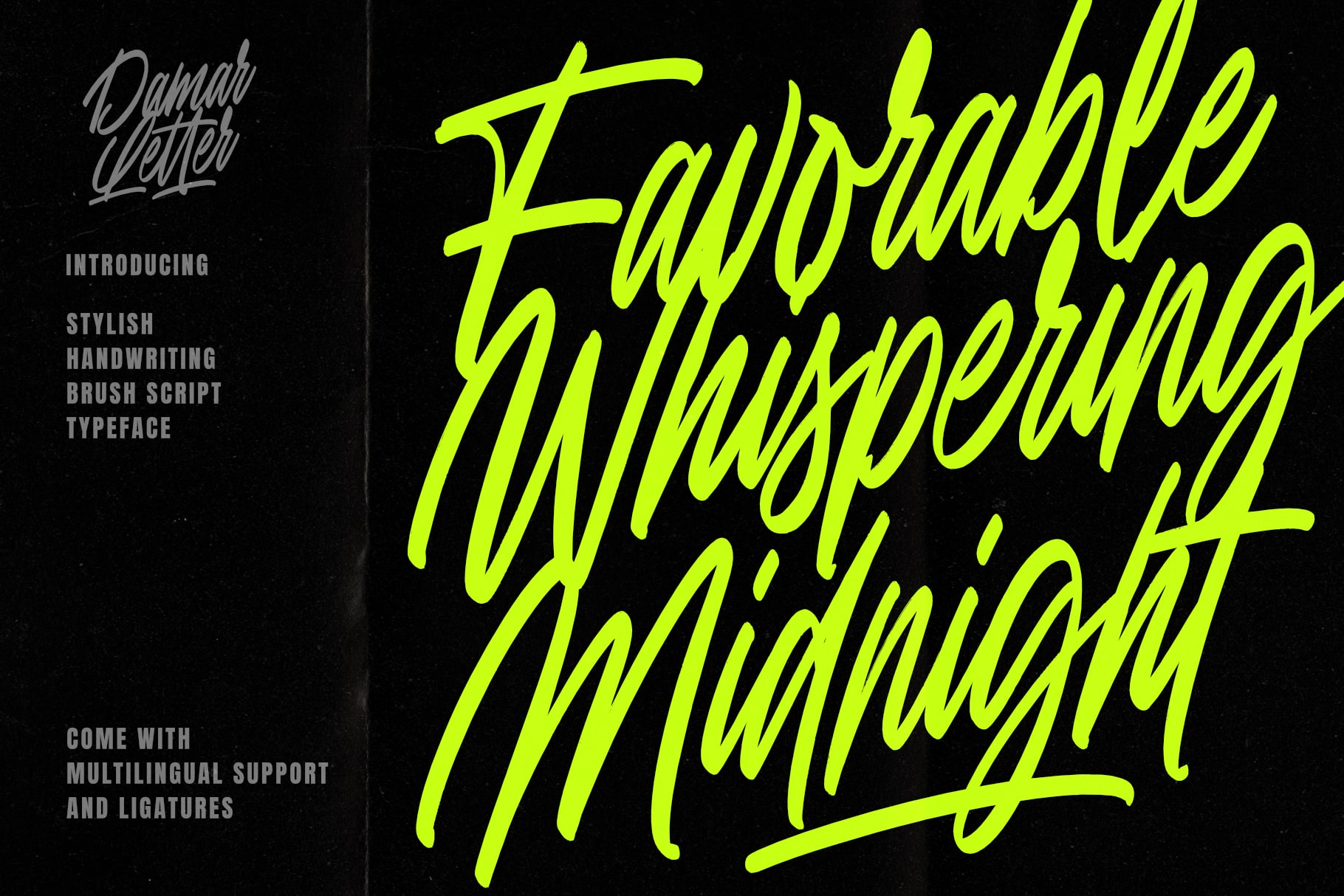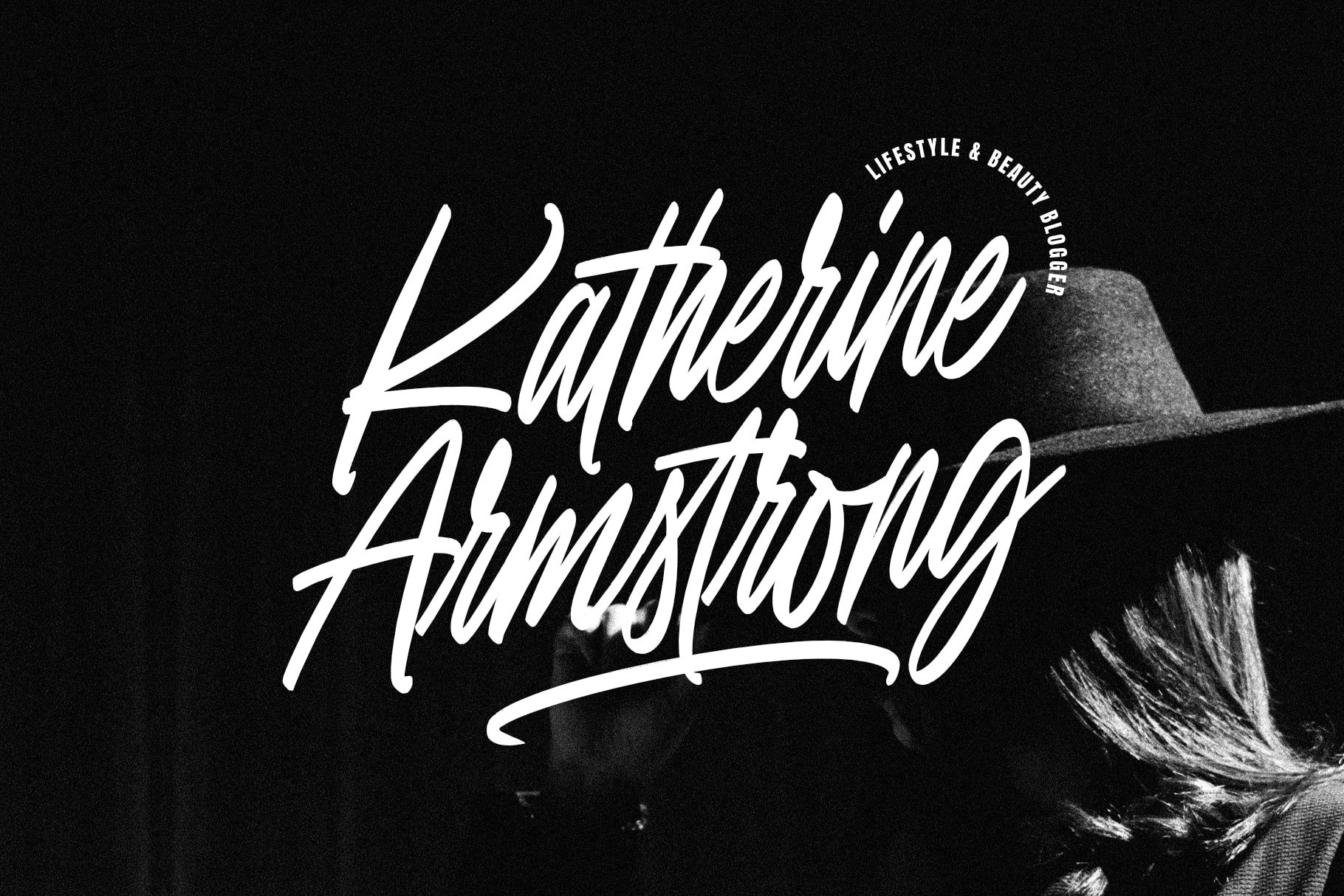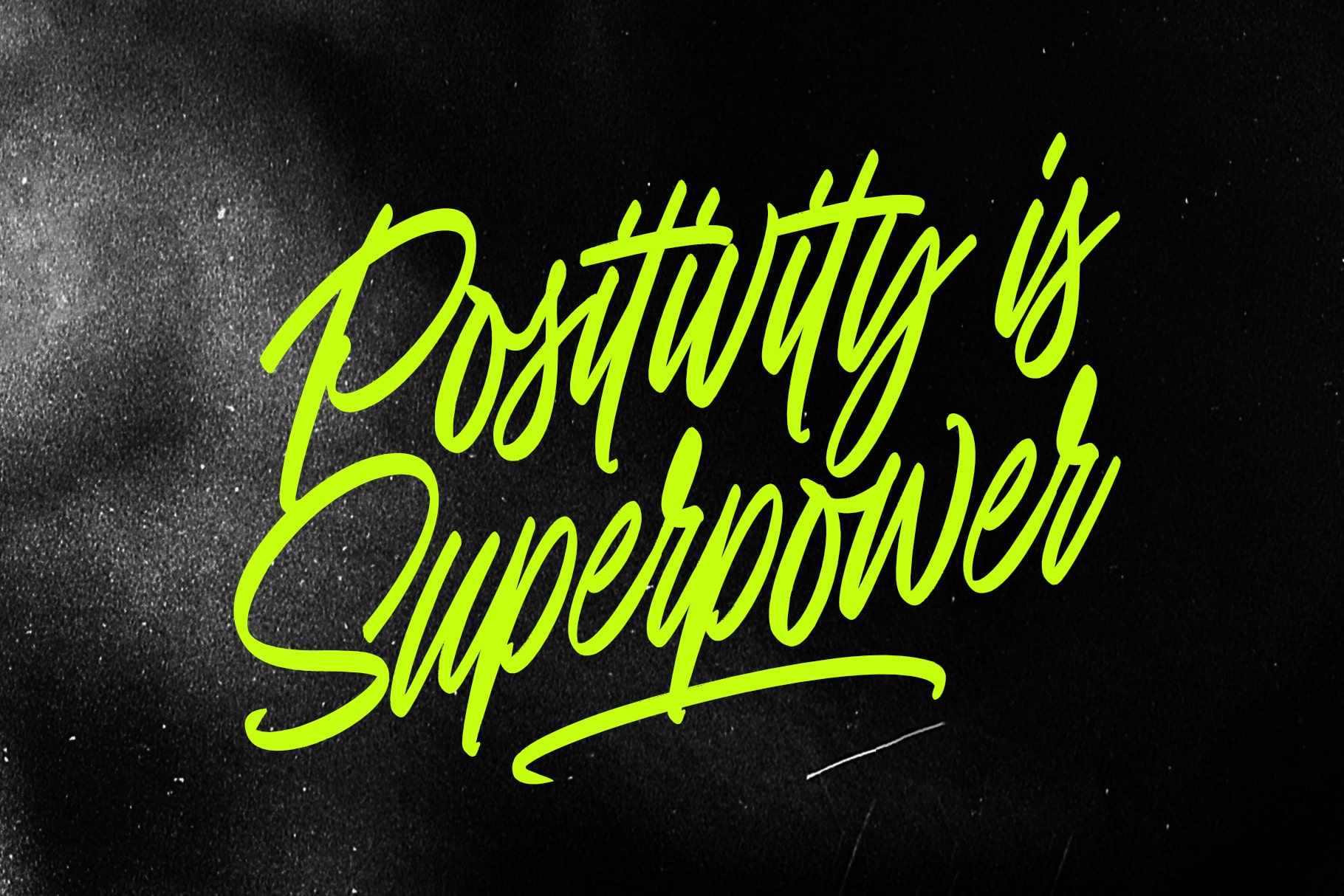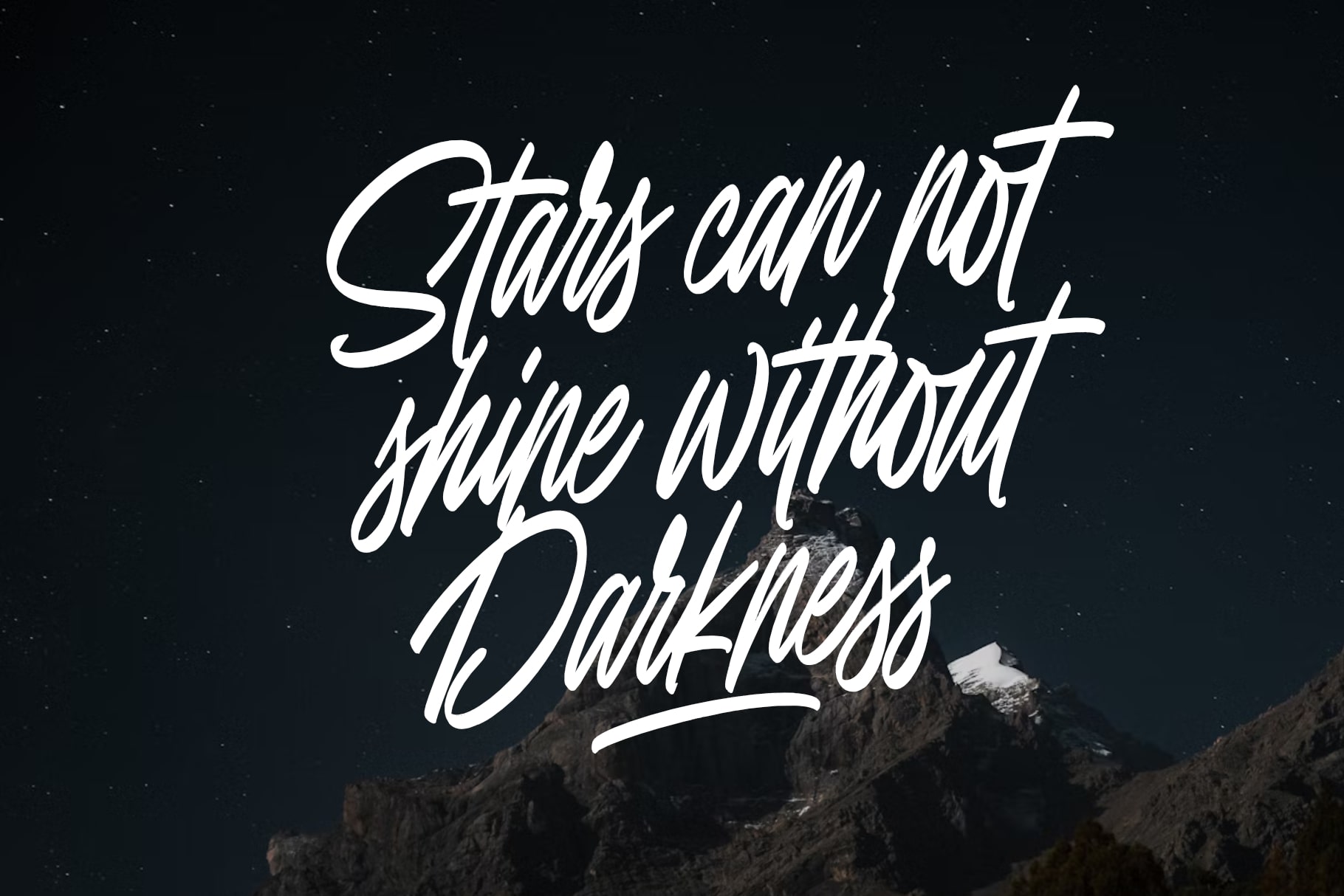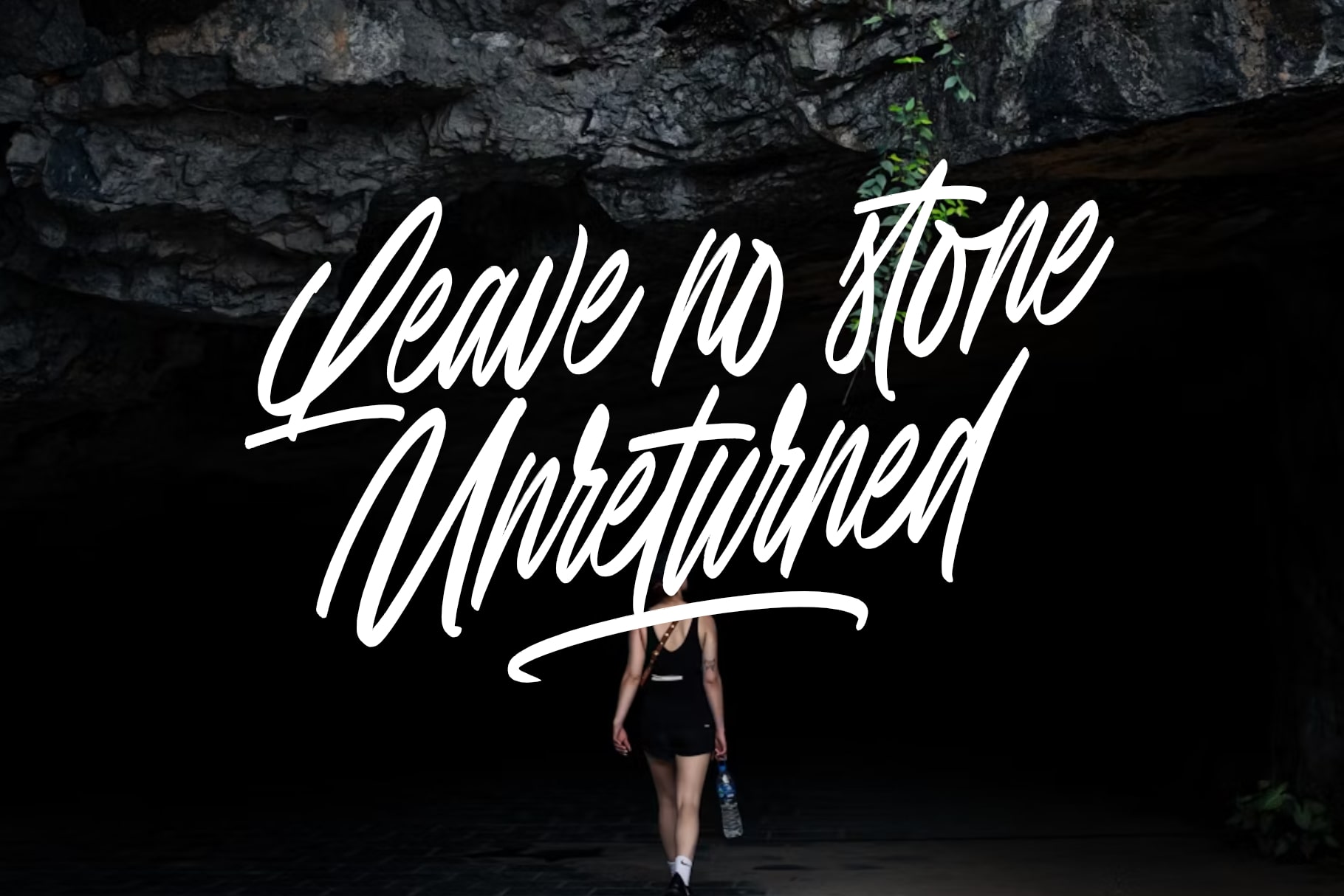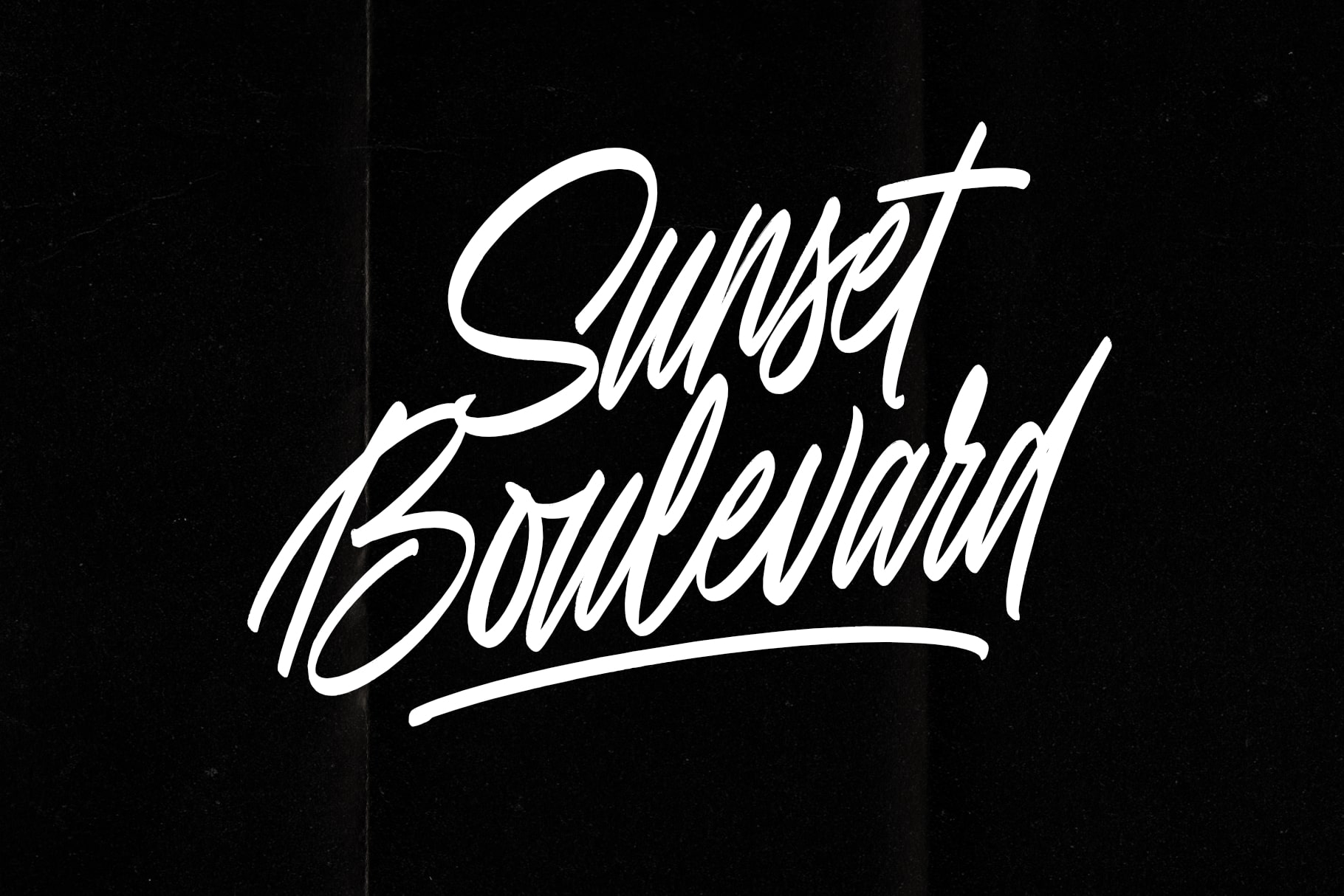
- Favorable Whispering Midnight brush script
Favorable Whispering Midnight is a graceful and atmospheric brush script typeface that combines the spontaneity of handwritten notes with the expressive texture of brush strokes. Its smooth, flowing letterforms convey elegance and intimacy, making it perfect for designs that aim to capture a sense of quiet sophistication and understated beauty.